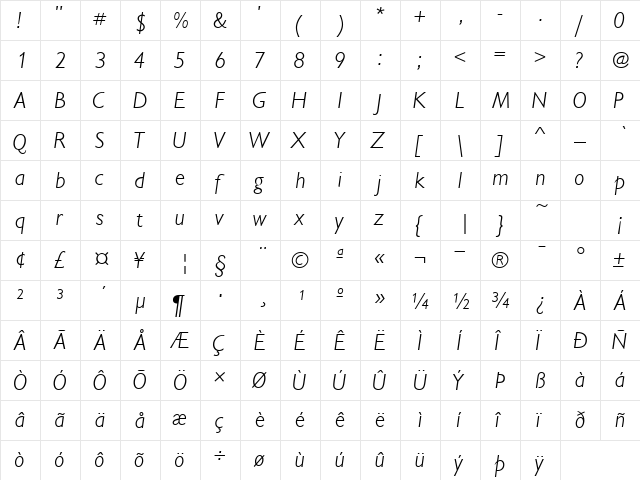
IdiomLightSSK Italic Font Preview
Design Context for IdiomLightSSK Typeface
IdiomLightSSK takes a measured approach to typography — its balanced proportions and neutral character make it a reliable workhorse for both digital and print work. The dynamic lean of this cut emphasises speed and emphasis in any layout. The delicate stroke weight brings airiness and refinement to layouts.